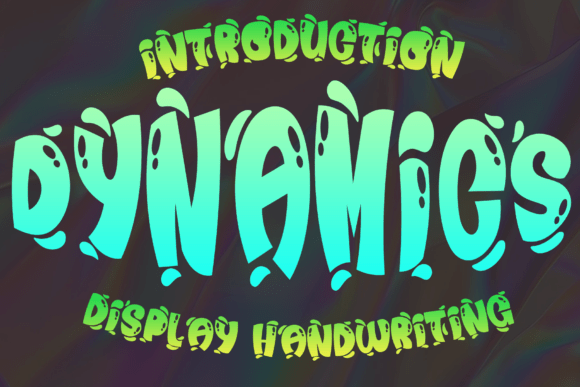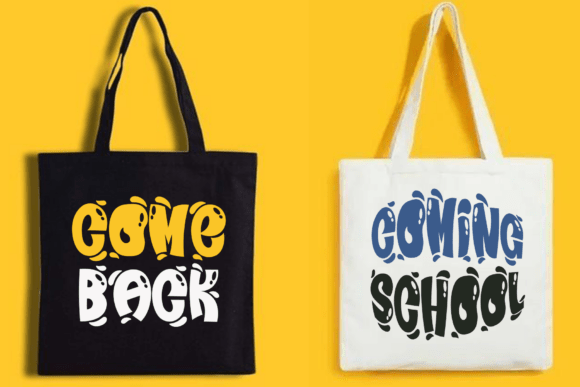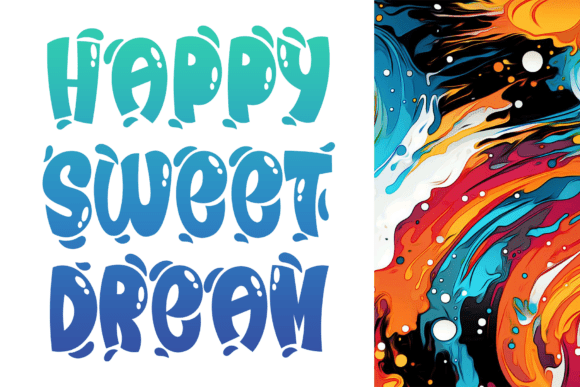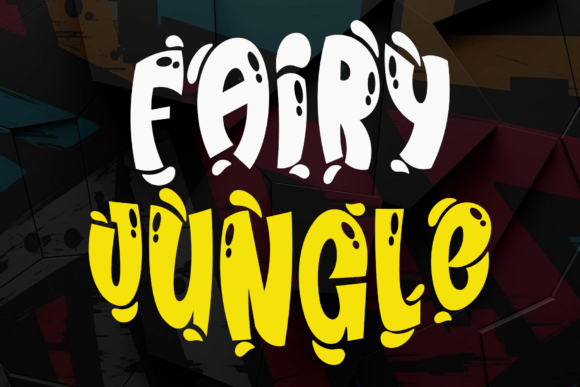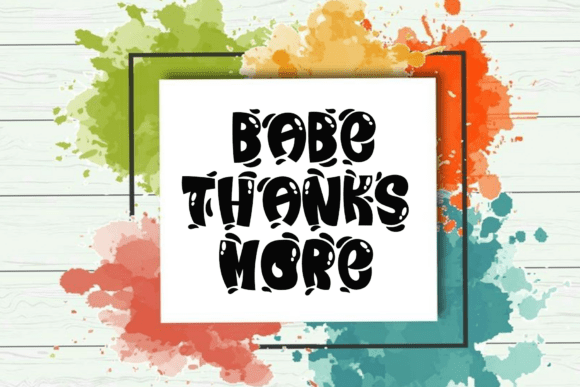
The Power of Expression: Unleashing the Dynamics Font
As designers, we’ve all experienced that ‘aha’ moment when a font choice elevates our project to the next level. For me, it was the first time I saw the Dynamics Font in action – its bold, playful curves and exaggerated letterforms instantly captured my imagination. It was as if the font was saying, “Hey, let’s make some noise and have some fun!”
The Dynamics Font is a one-of-a-kind decorative display font, designed to add a touch of personality to any project. Its unique blend of comic-like curves, playful cut-outs, and high-contrast color scheme makes it a standout choice for designers looking to make a statement. Whether you’re creating a bold headline or a whimsical logo, the Dynamics Font is sure to bring your design to life.
Dynamics Font Review
I recently had the chance to work with the Dynamics Font, and I’m here to share my honest thoughts on it. While it’s not without its flaws, I did find some aspects that really stood out. ✨
- Unique Personality: The Dynamics Font has a distinct, energetic feel that can add a lot of character to your designs.
- Flexibility: It’s a versatile font that can be used in a variety of contexts, from headlines to body text.
- Expressiveness: The font’s varied line weights and widths make it easy to convey different emotions and moods.
- Legibility: At smaller font sizes, the Dynamics Font can become difficult to read, especially for those with vision impairments.
- Lack of Consistency: The font’s irregularities can sometimes make it feel inconsistent or unpredictable.
- Overuse: Due to its distinctive style, the Dynamics Font can be overused, which can lead to visual fatigue.
- ⚠️ Not ideal for body text: While it’s great for headlines, the Dynamics Font might not be the best choice for large blocks of text.
Overall, the Dynamics Font is a bold and expressive choice that can add a lot of personality to your designs. While it’s not perfect, it’s definitely worth considering for the right projects. Just be mindful of its limitations and use it thoughtfully.
Getting the Most Out of Dynamics Font
Here are some tips to get the most out of Dynamics Font:
- Use Dynamics Font in combination with other fonts to create a unique and dynamic look.
- Adjust the font spacing and leading to improve readability.
Dynamics Font is commonly used in:
- Marketing materials, such as brochures and flyers.
- Editorial and publishing projects.
Alternatives to Dynamics Font
Montserrat is a popular sans-serif font designed by Julieta Ulanovsky. It is a clean and modern font ideal for digital interfaces, including websites, apps, and mobile devices. Montserrat is a great alternative to Dynamics Font for designers looking for a clean and minimalist aesthetic.
Comparison to Dynamics Font: Montserrat has a similar sans-serif feel to Dynamics Font but is more modern and clean-cut. While Dynamics Font has a slightly more rounded feel, Montserrat is more angular and geometric.
Open Sans is a highly legible sans-serif font designed by Steve Matteson. It is a versatile font suitable for a wide range of applications, from digital interfaces to print materials. Open Sans is a great alternative to Dynamics Font for designers seeking a clean and readable font.
Comparison to Dynamics Font: Open Sans has a more rounded feel than Dynamics Font, making it more suitable for body text. While Dynamics Font is ideal for headings, Open Sans is better suited for longer blocks of text.